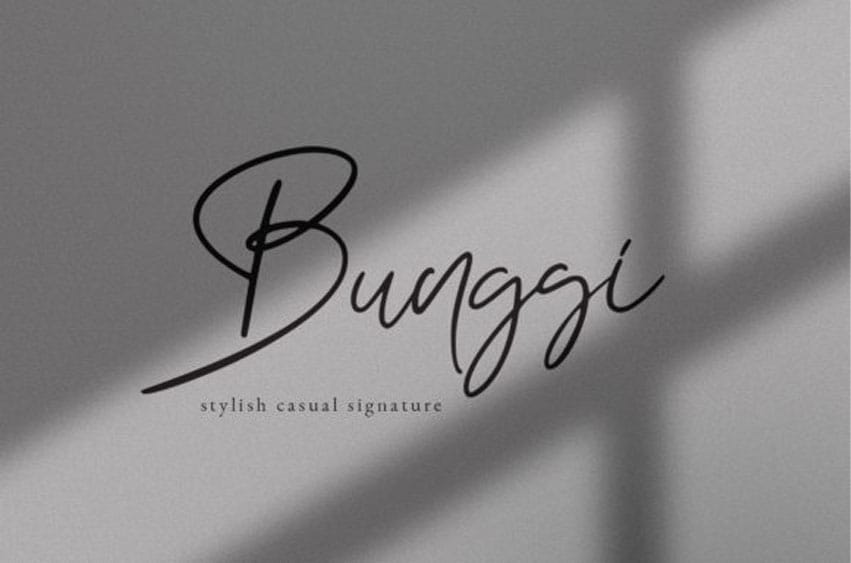
Bunggi Signature Font is a modern script font that is perfect for adding a personal touch to any design project.
Every letter has a unique and beautiful touch, which will make your design come alive!